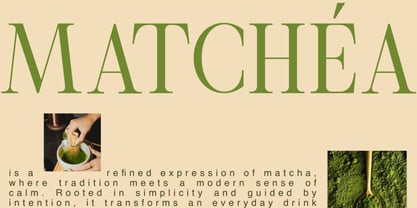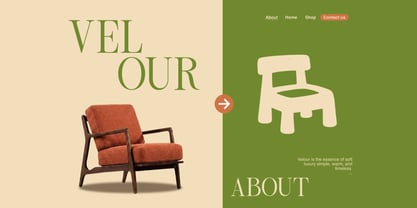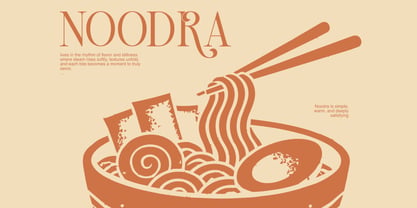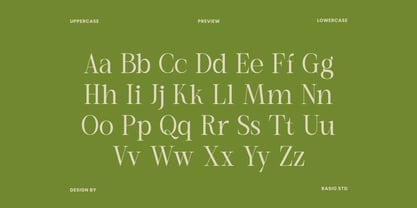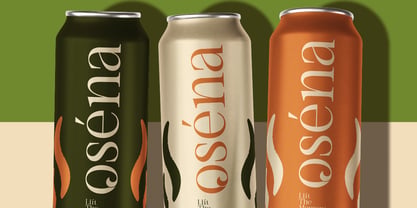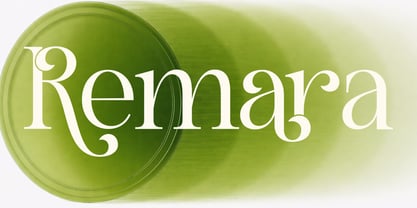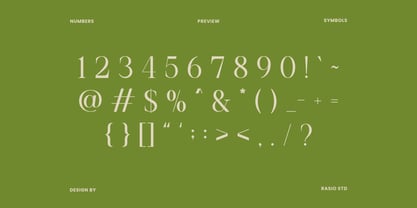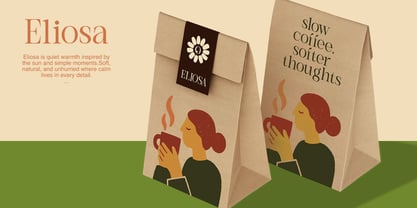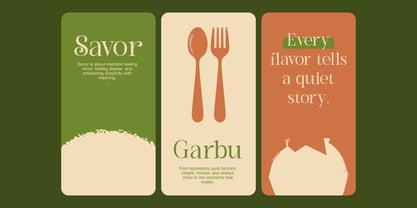
Remara
by Rasio Studio
The Remara Font Family was designed by Fajar Indra and published by Rasio Studio. Remara contains 1 styles. More about this family
Remara Elegant Decorative Serif showcases refined high-contrast letterforms with graceful curves, delicate ligatures, and expressive decorative serif details. The font features multilingual characters, uppercase and lowercase sets, numerals, punctuation, and stylistic alternates, crafted for sophisticated editorial and branding compositions.
Relevance and Use Cases is perfect for luxury branding, editorial layouts, beauty packaging, fashion campaigns, boutique logos, restaurant menus, wedding stationery, premium product labels, magazine headlines, social media branding, and elegant visual identities requiring refined decorative serif typography.